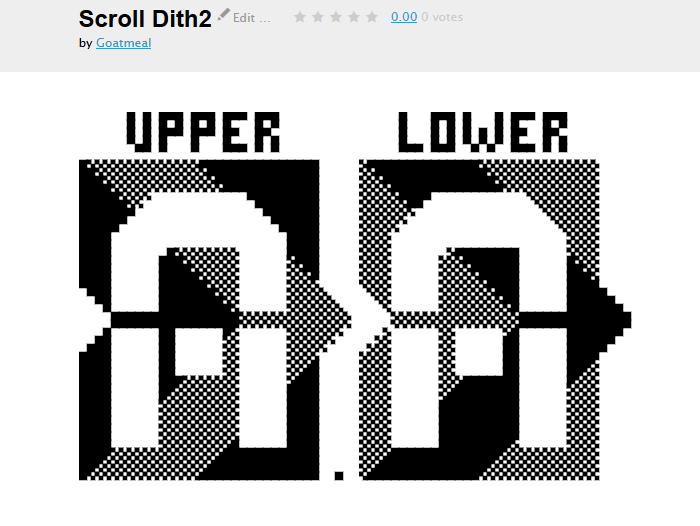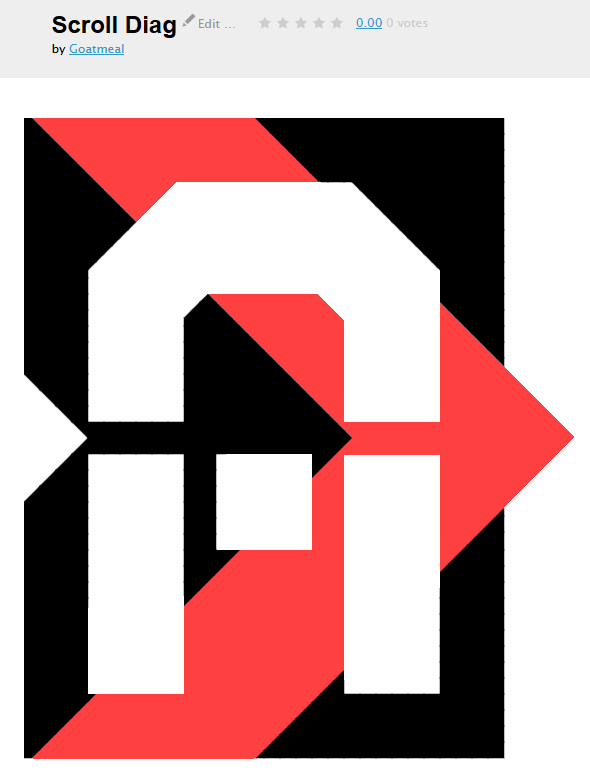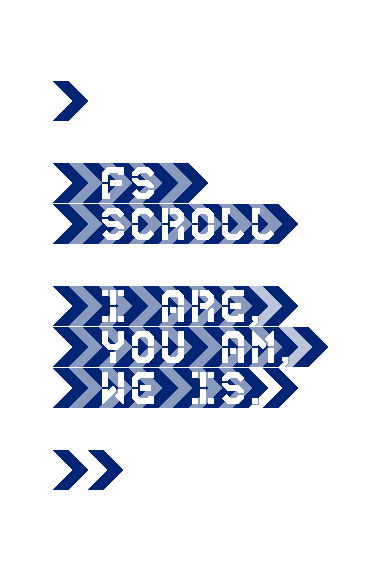
I take off my brain in front of you once again!
Clever crafting to achieve this effect. 10/10
A very cool monospaced stencil font, some really lovely shapes.
For better flexibility and usage are you planing on releasing a version without the arrows?
Nice, I like the effect! 10/10
Amazing duotone effect!
Awesome work.
LOL 11/10
nooice!
Congratulations! FontStruct Staff have deemed your FontStruction worthy of special mention. “fs Scroll” is now a Top Pick.
What a great sample! Have you thought about one that scrolls in the opposite direction?
I did do the scroll going right to left initially. The text appeared to go many times faster in that direction because it was flowing against the arrows. What I should do is change the direction of the arrows in the font.
SOCK
Lovely stuff
@minimum - A couple of ideas...
1. To match your animated GIF from 26 Sept 2015, you could offset the solid/dither pattern for the lowercase (upper black -> lower dither/upper dither -> lower black).  That way, your could make the same type of scrolling effect sample using upper and lowercase letters.
2. You could make this a non-pixel version [Ooo! It pains me to say that! ;^) ] like your "fs Scroll (Not)" font, and use Patron colors instead of the dithering effect.
@Goatmeal: In a word, What? Also, lowercase letters, what?
Alsoalso , minimum is not a patron. thalamic will have to do that. But what thalamic will have to do, what?
@thalamic - My apologies for the rushed and confusing suggestions.  I hope to provide better clarification and examples later today.  :^)
Thank you. I'll look forward to it. You've already got me thinking about hot to update this concept.
1. Essentially switch the solid and dither patterns for the lowercase:
2. Make a "smooth" / non-pixel version (based on the original "fs Scroll (Not)"), and you could use the Patron colors to fill:
And to paraphrase Doc Brown, please forgive the crudity of these recreations. ;^)
Ah! Thank you, @Goatmeal. A looong time ago, I typed out a game from a computer magazine on my Commodore 64 that used color swapping technique to give the impression of going into a tunnel. I like the idea of jumping back in time in technique and jumping to current time for the technology. Look out for the new font in a few hours.